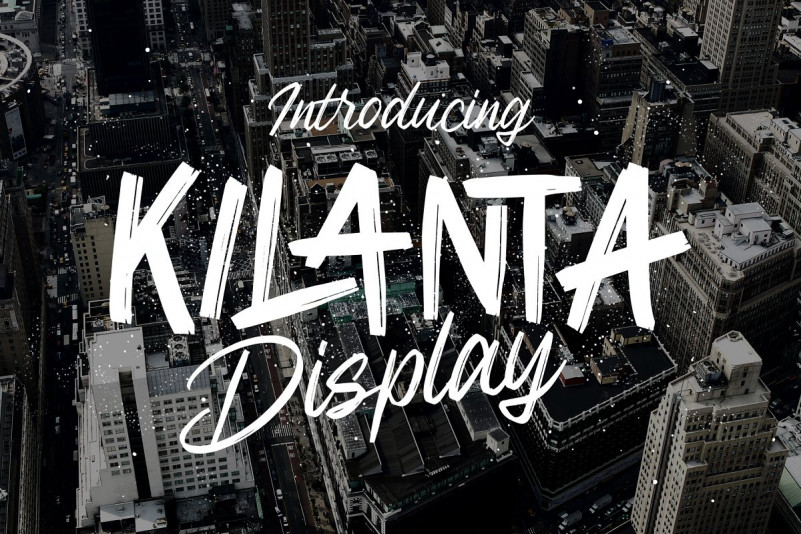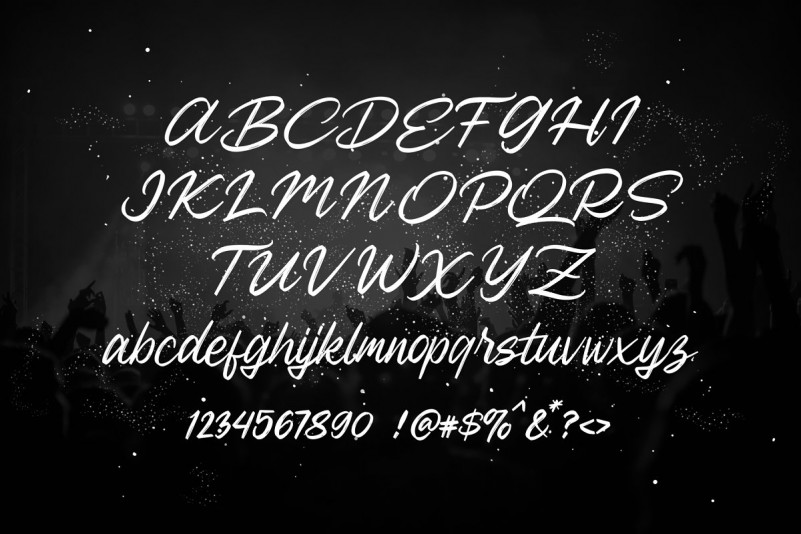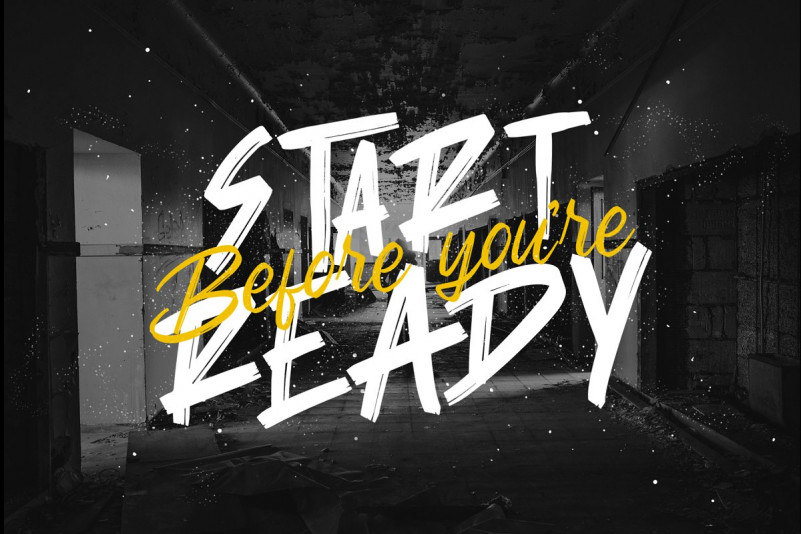
Kilanta Display Font
Introducing Kilanta Display – Font Duo which has a hand lettering brush style. So it looks natural like a handmade. This font is best used for your design project that has the concept of fun, girly, romantic and elegant. Can also be applied to the design of a logotype, header website, wedding logo, romantic design, makes some lettering a quote, T-shirt design etc.